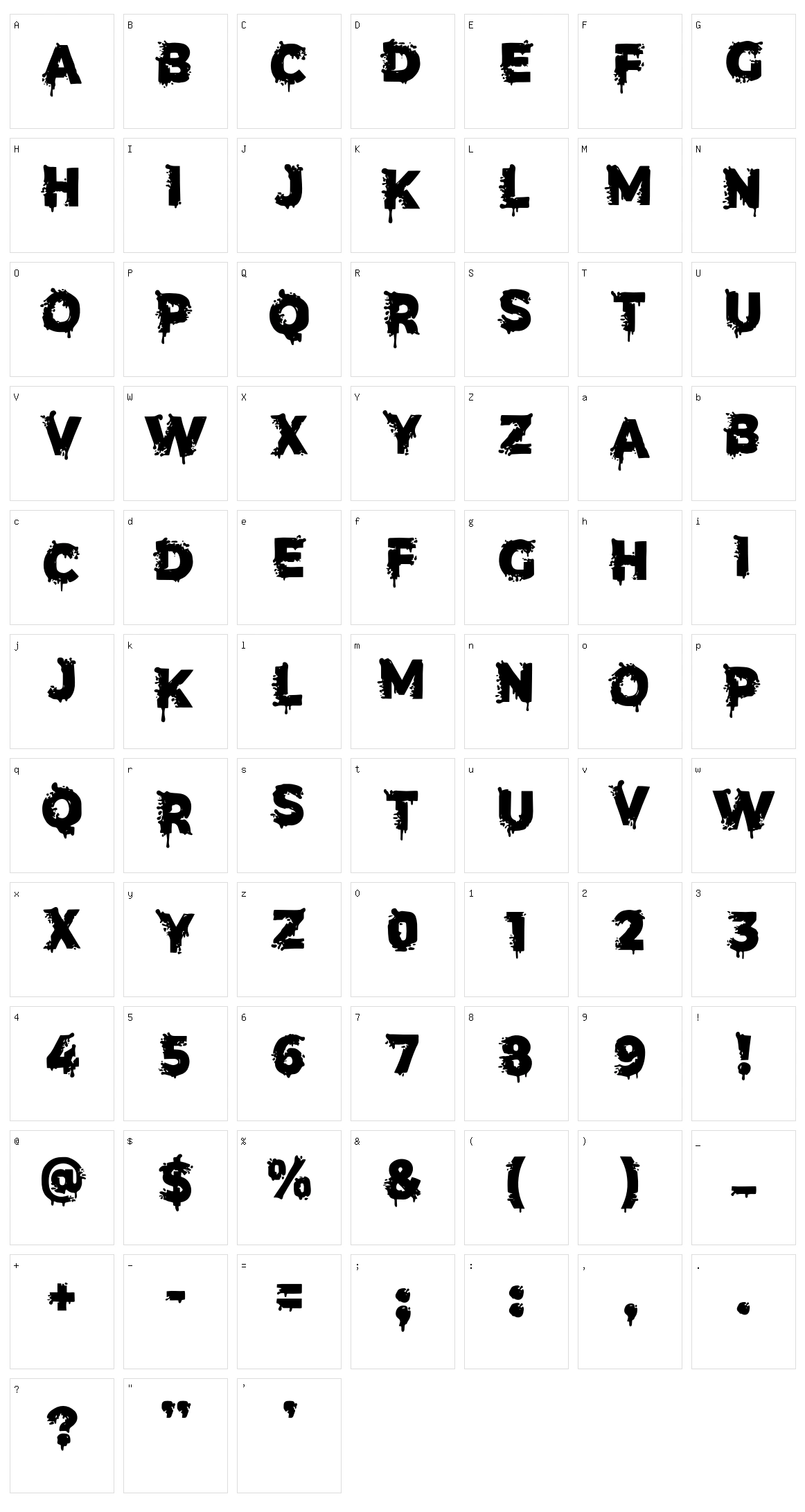
The free font Terror Letter is carefully designed by Khurasan, showcasing a thoughtful balance of creativity and usability and falls under the Horror font style. When you download the ZIP file, it contains only 670.03 KB of font files, making it lightweight and quick to download. Please review the license details below to understand permitted usage and distribution rights. If license information is not available, we recommend using this font for personal projects only or contacting the author directly for commercial usage permissions.